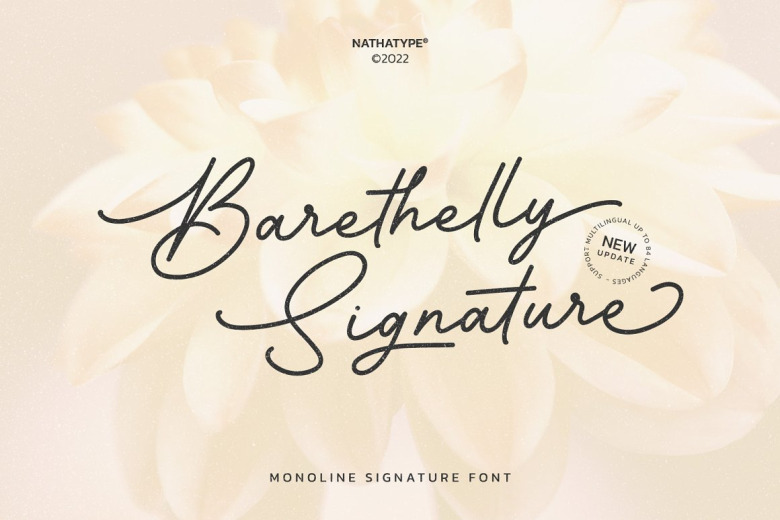
Barethelly Signature Font
Barethelly Signature, a font derived from actual handwritten script, conveys clean elegance and trust through its monoline form. Globally, we aim to bolster brands with localized options as part of our dedication to worldwide recognition. While short sentences Uniformity can undermine humanity, varied syntax fosters complexity.
Barethelly Signature Monoline Font